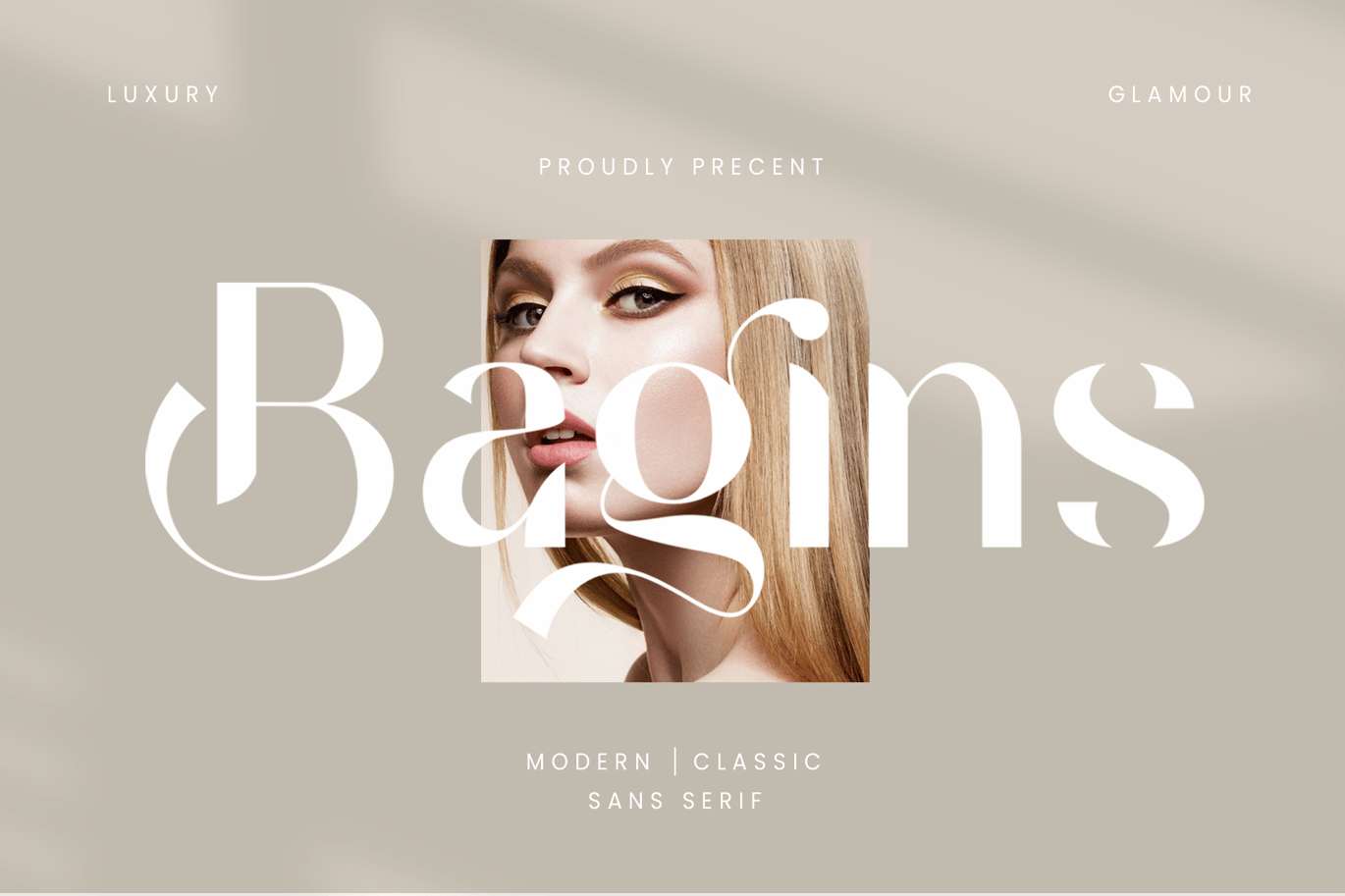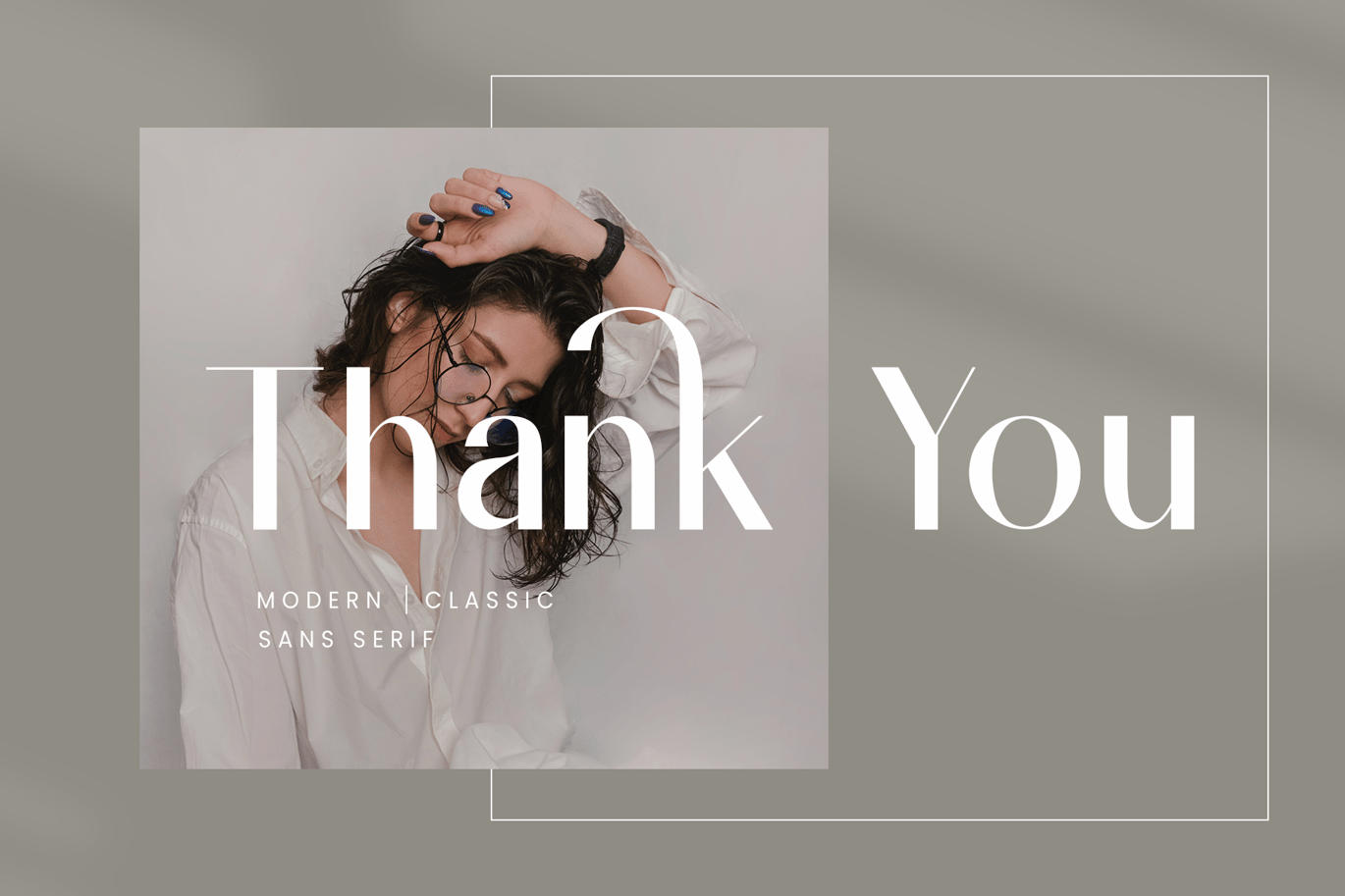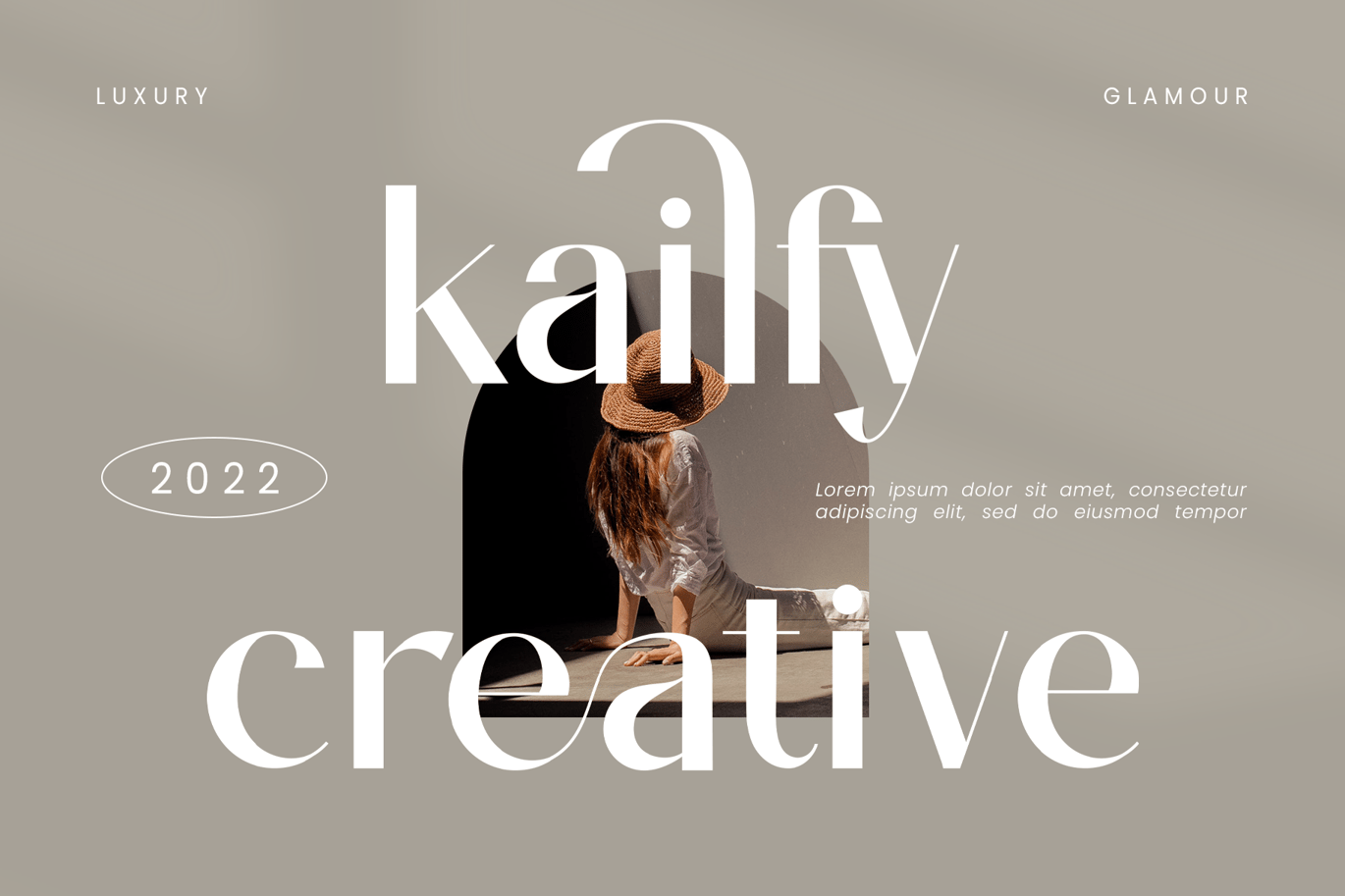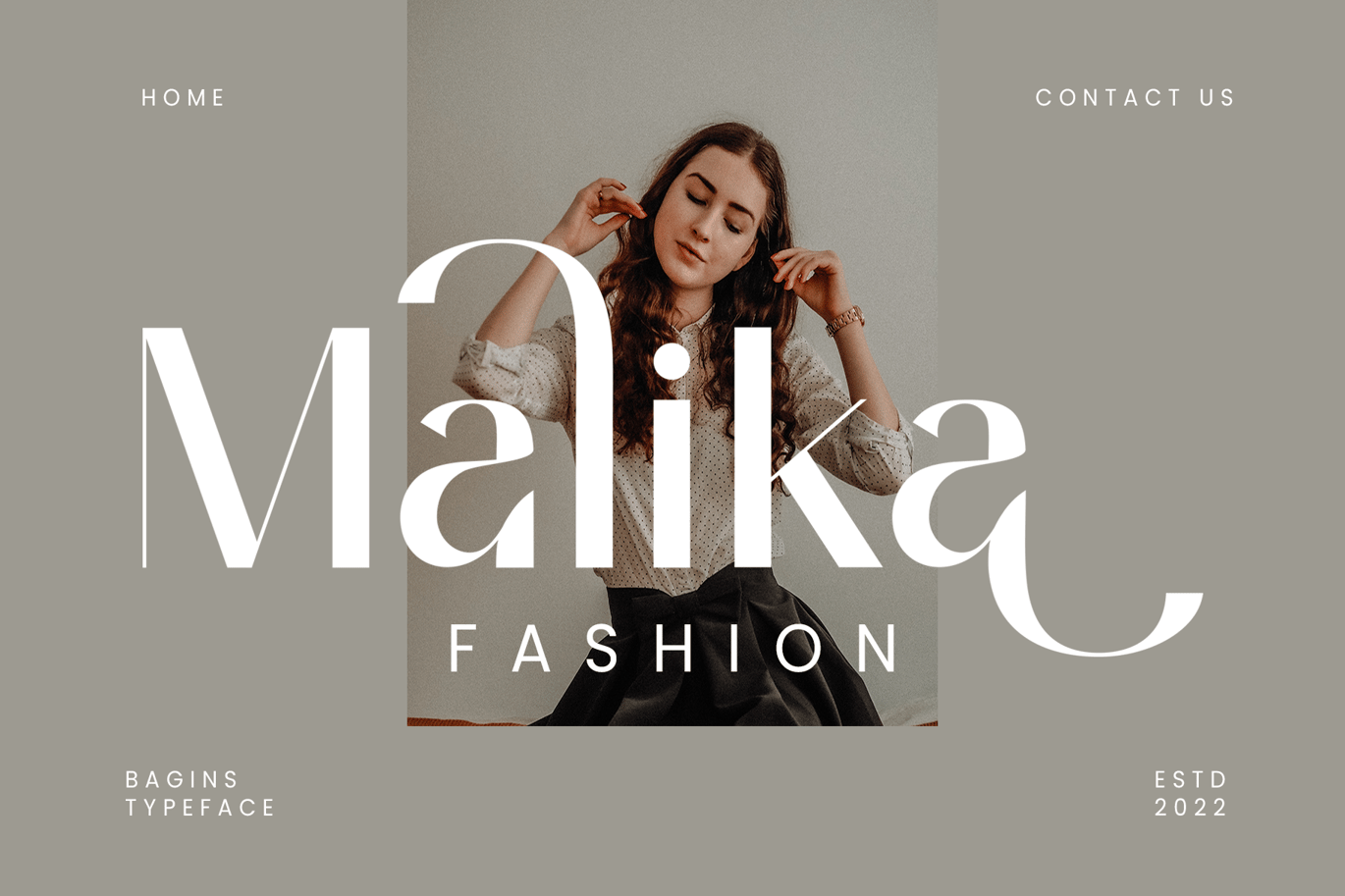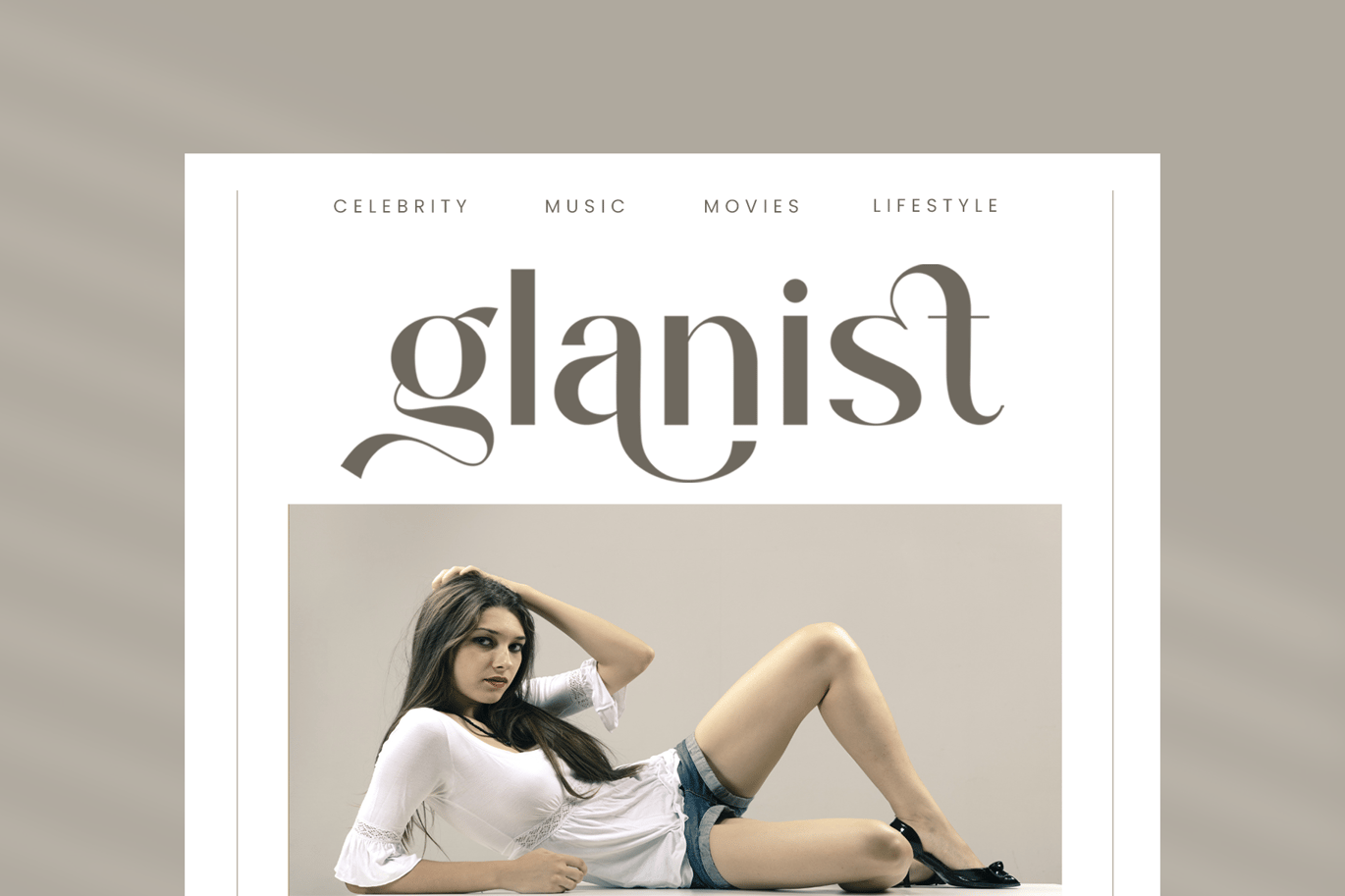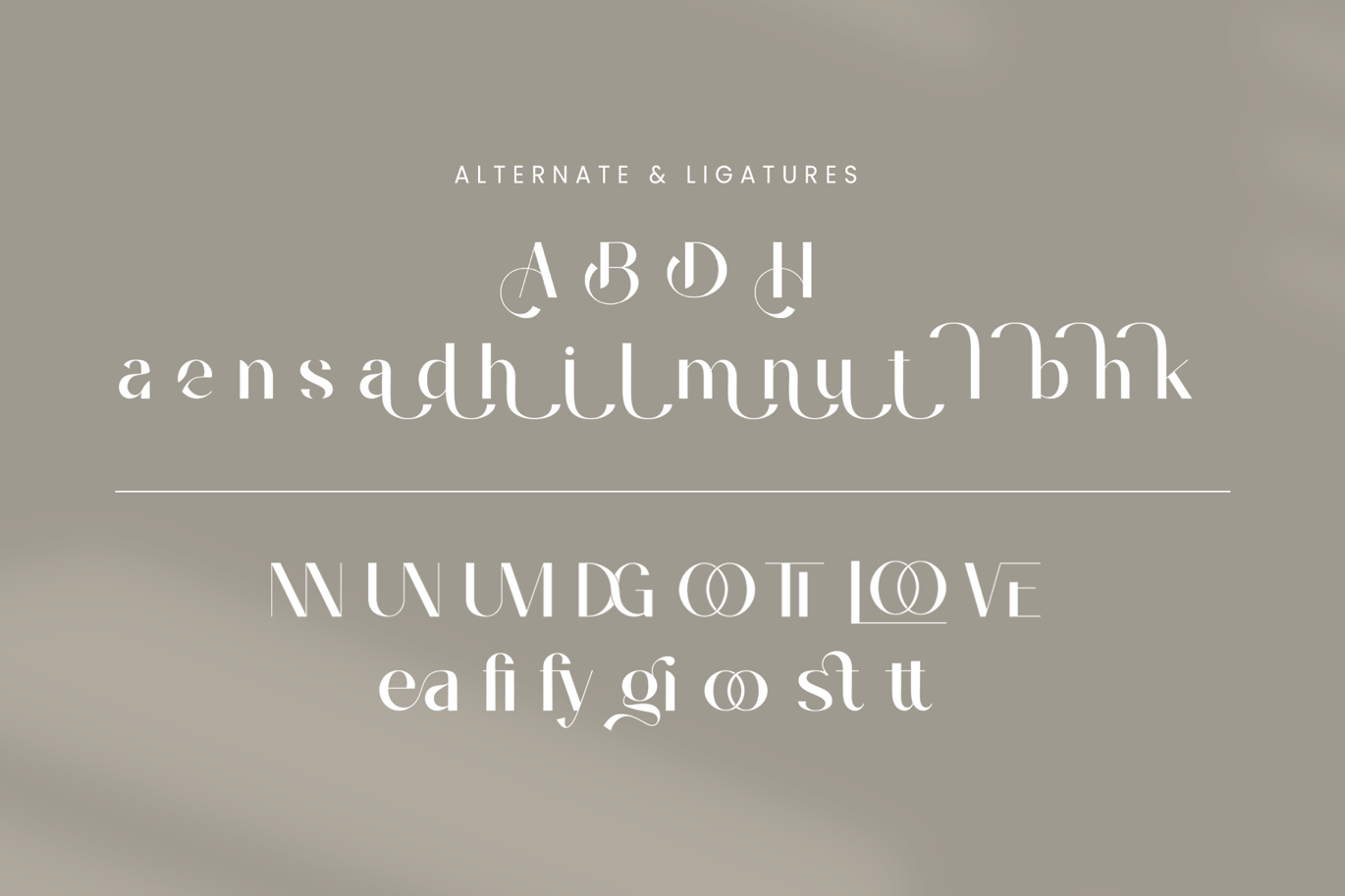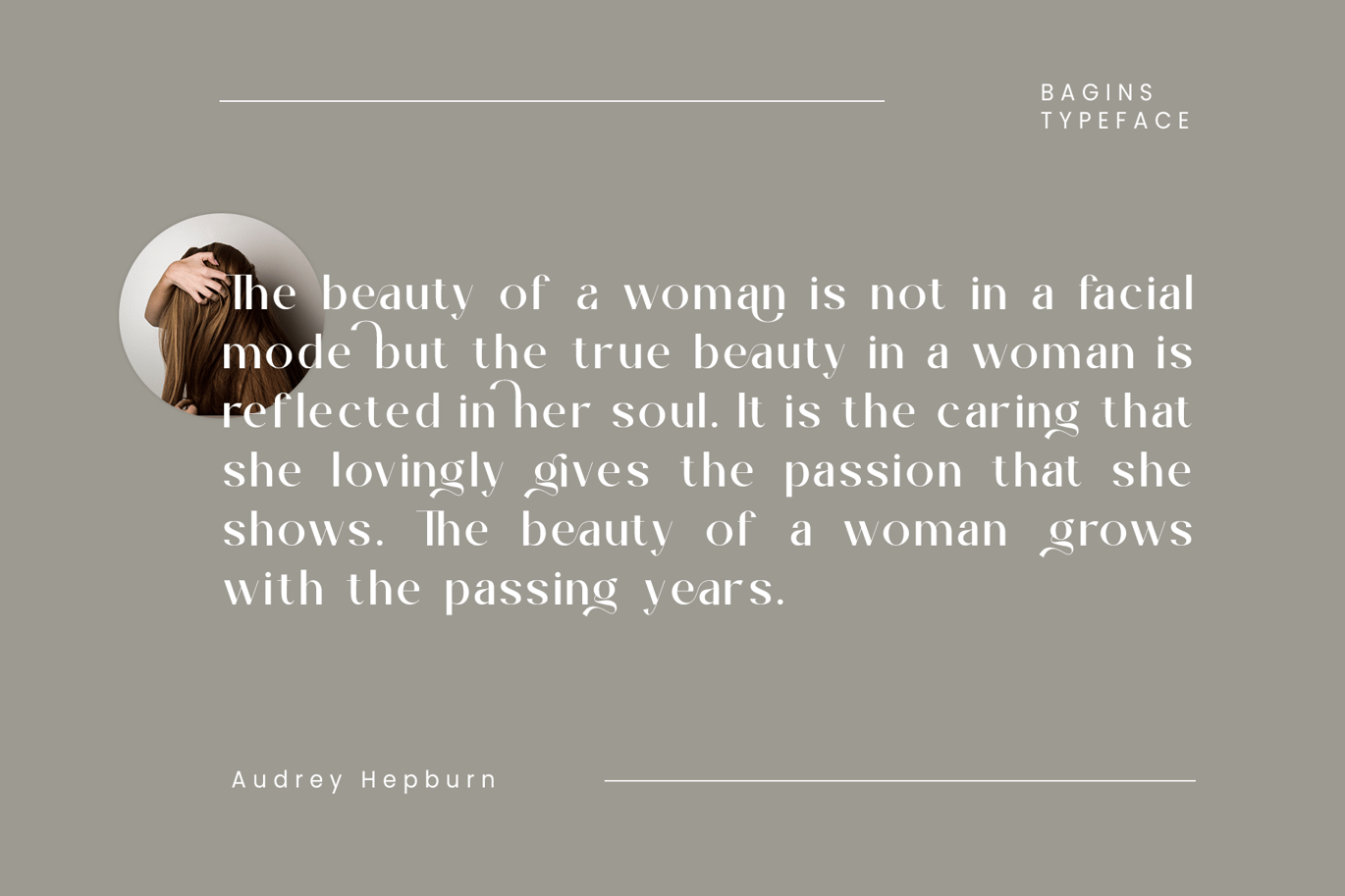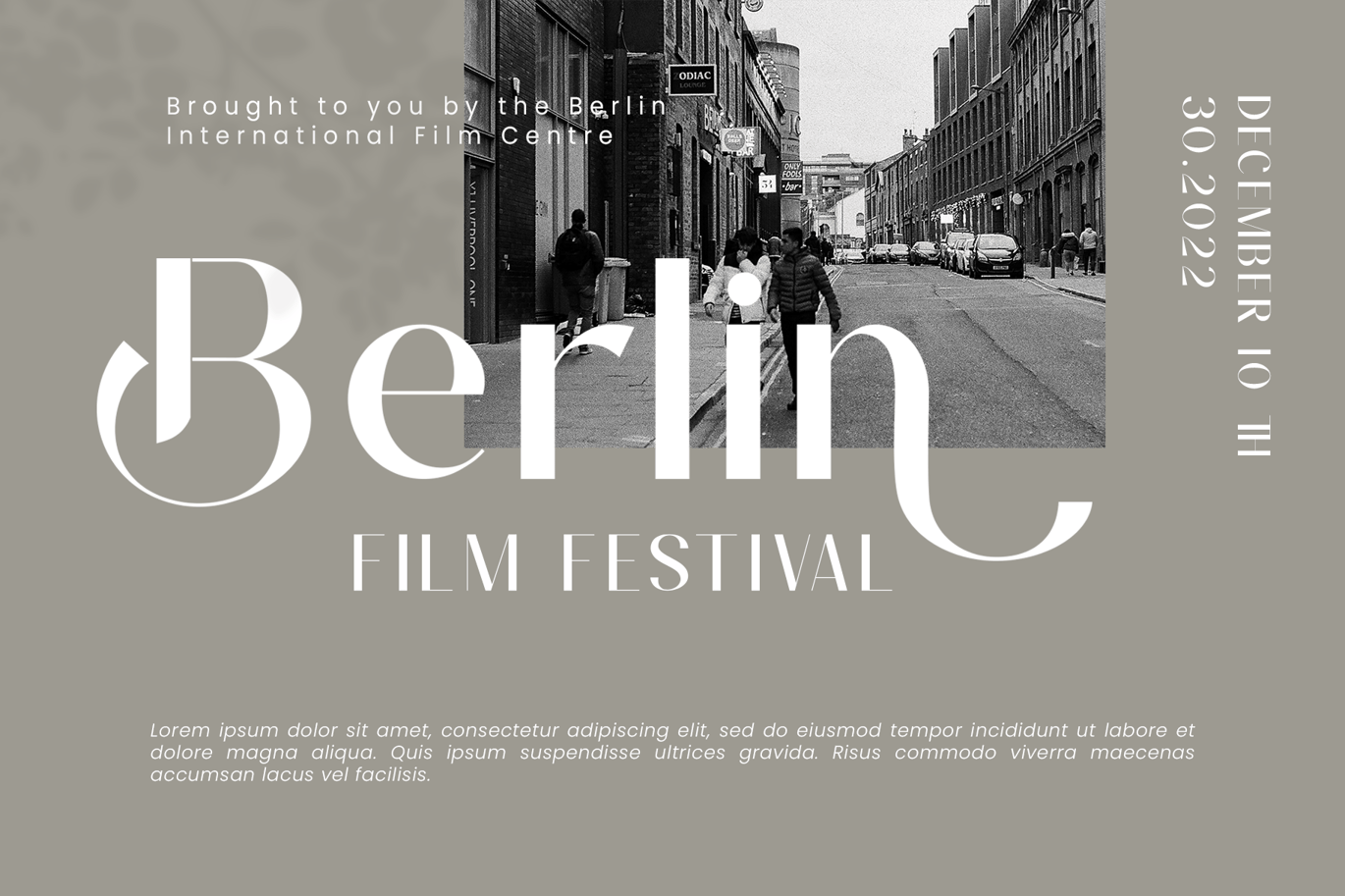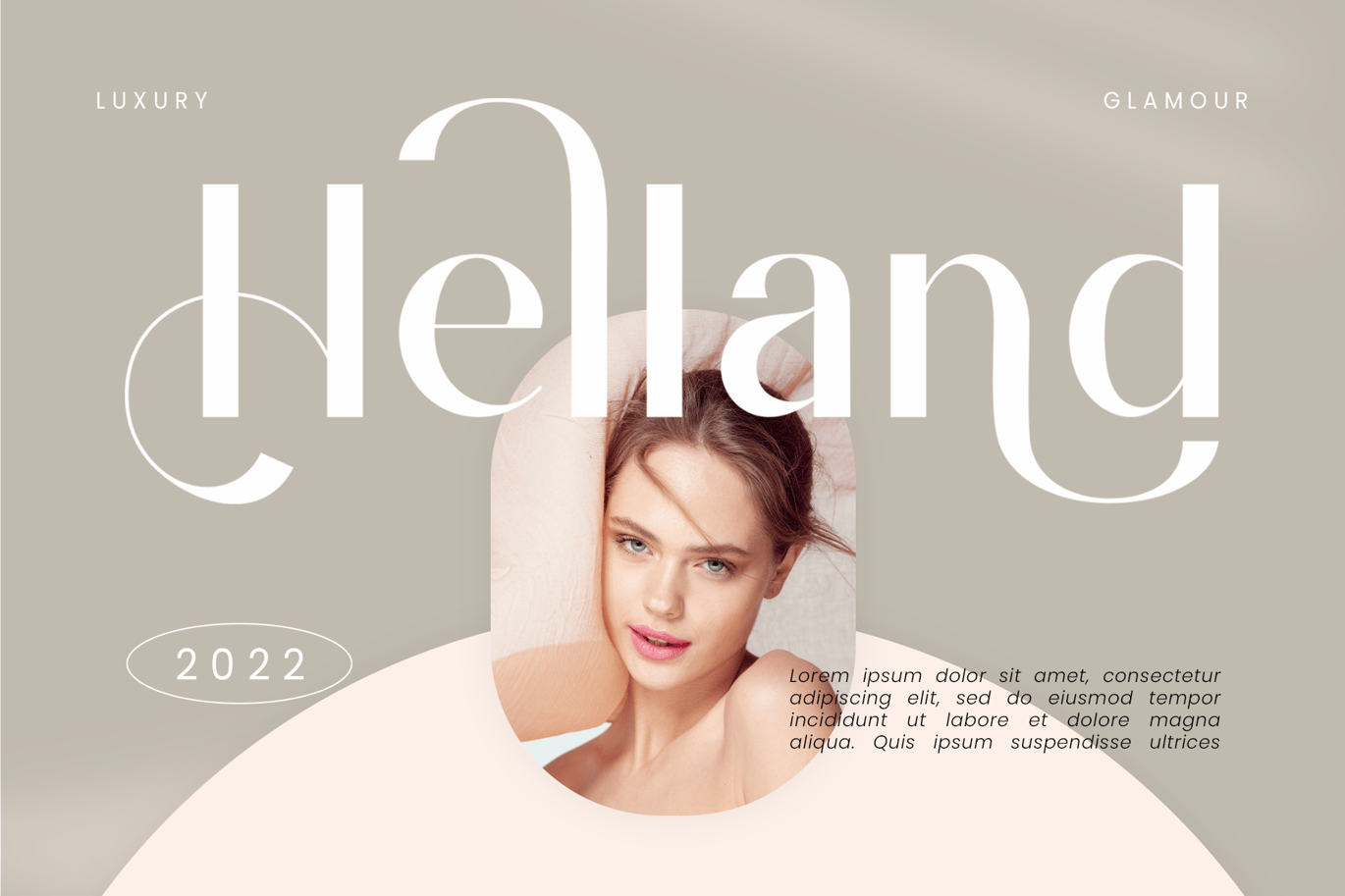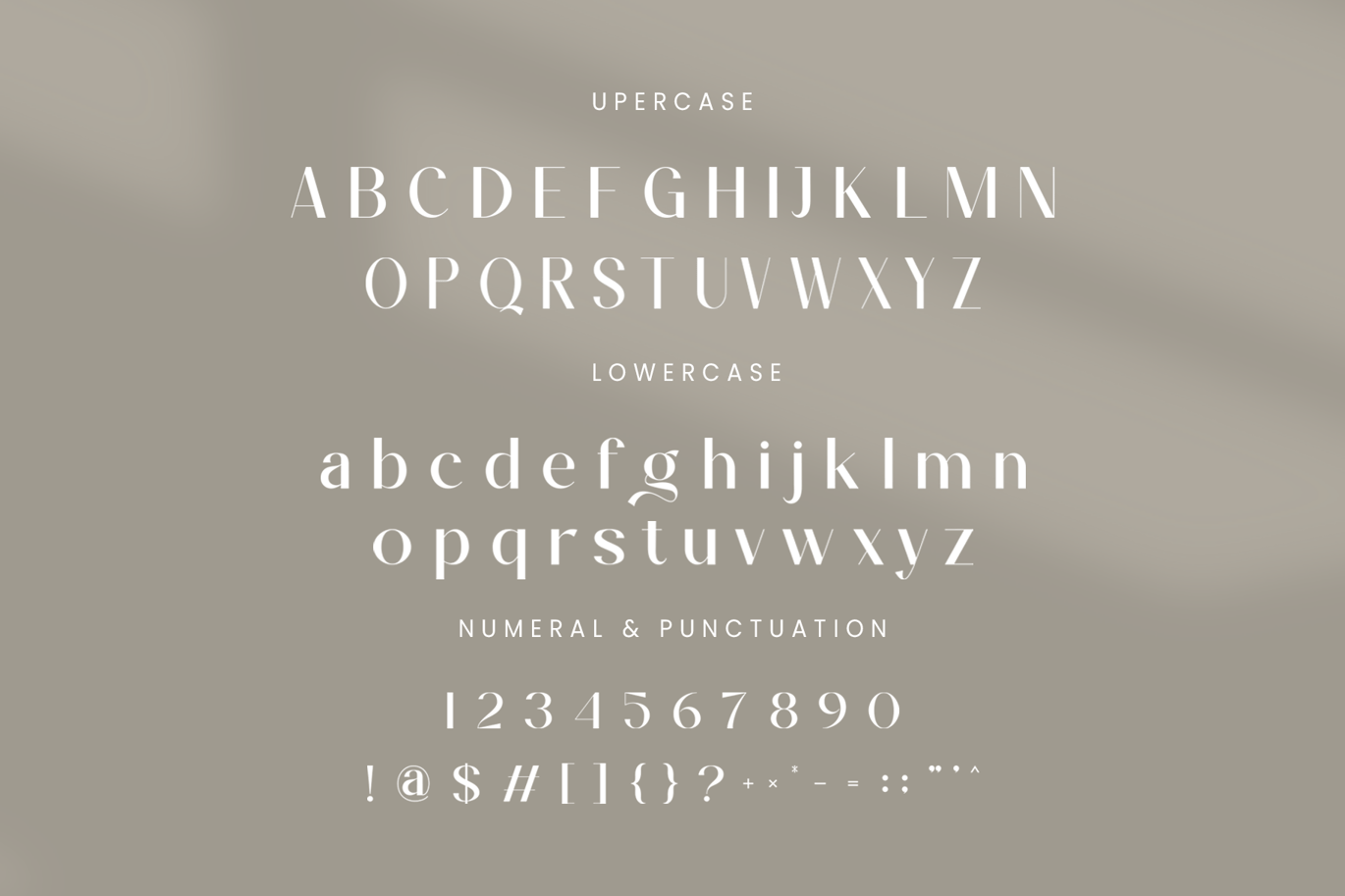
Bagins Sans Serif Font
Bagins Sans Serif is a balanced, smooth, elegant and stylish sans serif font. He has a beautiful character. It fits perfectly with invitation card designs, company logos, movie titles, movie names, business cards, book titles, brand names and various other designs. Bagins Sans Serif is a subtle Sans serif font that exudes sophistication and elegance. Its stylish alternations and ligatures make this font the perfect partner for any project.